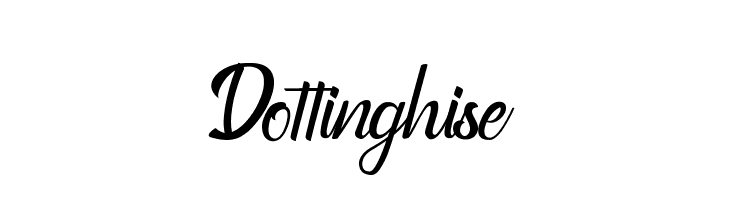
A playful, handwritten script font with tall, narrow letters and whimsical strokes.
A flowing, cursive script font with elegant, connected strokes.
A dynamic and elegant cursive script font with bold, flowing letterforms.
A playful, casual handwritten font with fluid, connected strokes.
Whimsical and flowing handwritten script font.